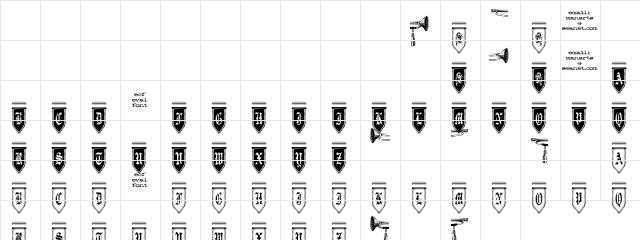
kings court (eval) Regular
Design Context for kings court (eval) Typeface
kings court (eval) is a composed and adaptable typeface that performs quietly and consistently across a wide range of design contexts.